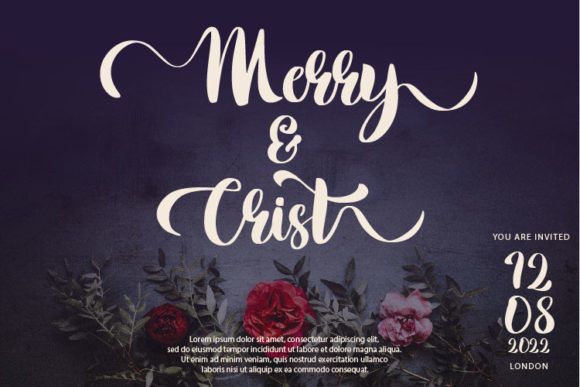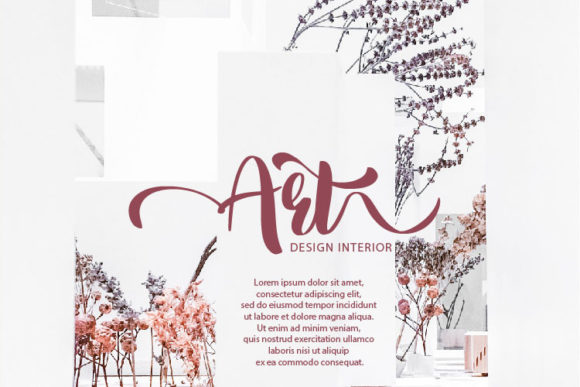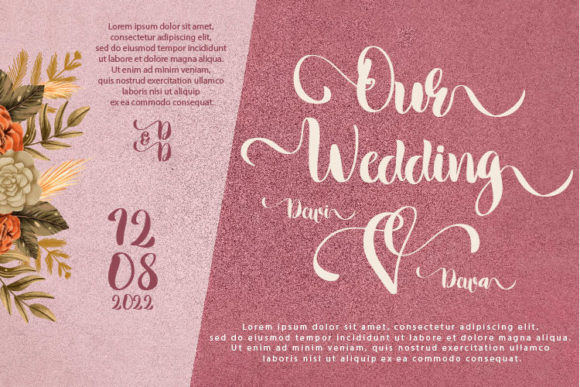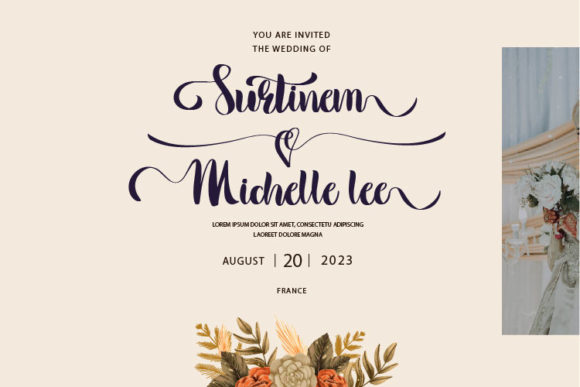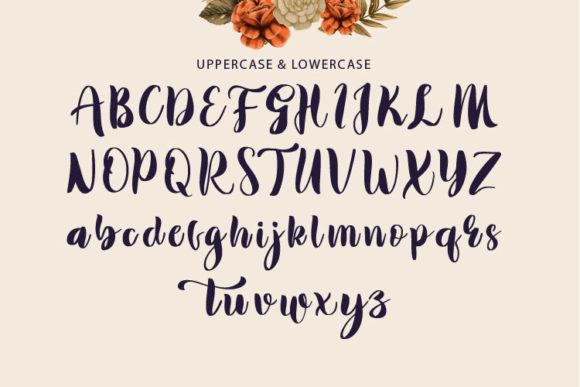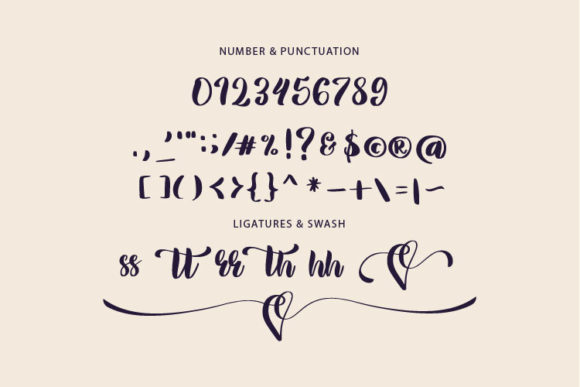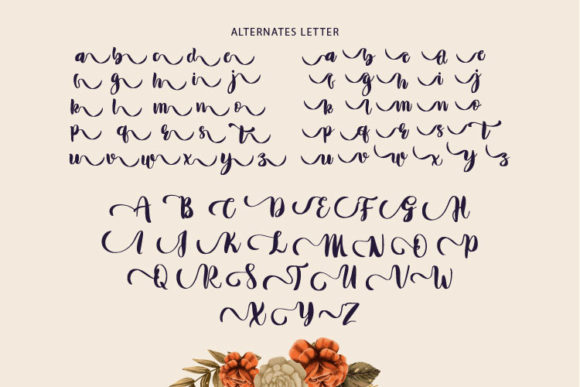
Rustic Font
About Rustic Font
Rustic is a modern script font created by hand with a brush and a sense of style. Rustic will look beautiful on a wedding card design, logotype, website header, fashion design, or other creations.